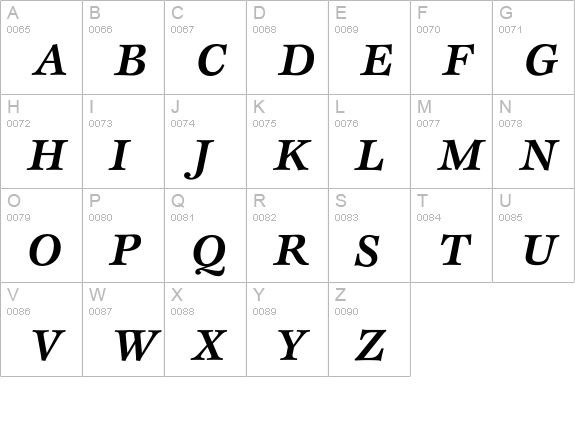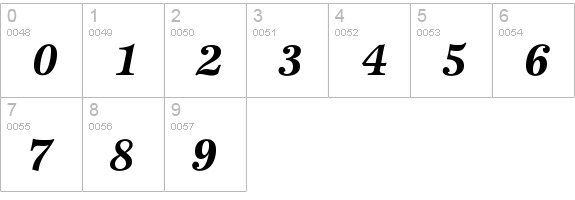
EspritBoldItalic Font Details
EspritBoldItalic font is a striking and dynamic typeface that exudes elegance and sophistication. Its bold and italic design commands attention while maintaining a sense of fluidity and grace. The strong, slanted characters convey a sense of movement and energy, making this font perfect for adding a touch of modern flair to any design project. Best of all, EspritBoldItalic is available for free download at FontsMarket.com. This means that you can easily access and use this stylish font in your creative endeavors without any cost. Whether you're designing a logo, creating a poster, or crafting a website, EspritBoldItalic offers a versatile and eye-catching option that will surely make your text stand out. Don't miss out on this opportunity to elevate your designs with the bold and italic beauty of EspritBoldItalic font.